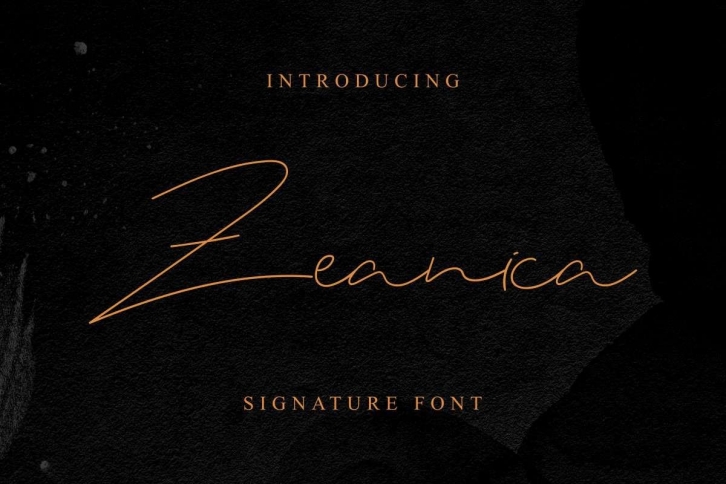
Zeanica is a beautiful font that was designed by EdricStudio. It's a great choice for designers and creatives who need such a font. It was released on August 10, 2020 and the file size is 17.13 MB. Zeanica may give a more youthful, expressive and casual look to your project. It is a very beautiful, refined, elegant, and high-quality font.